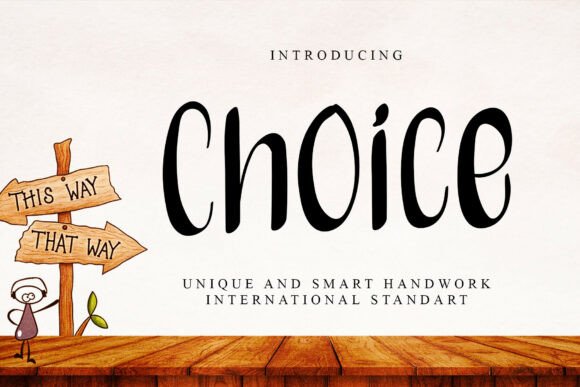
Introducing Choice Font: Elevate Your Designs with Elegance
In the world of design, the right font can make all the difference. It can elevate your project from ordinary to extraordinary, convey the perfect tone, and capture the essence of your message. If you’re on the hunt for a font that combines uniqueness, elegance, and professionalism, look no further than Choice Font. Designed with a keen eye for detail and a professional hand touch, Choice Font is the perfect companion for your design projects.
What Makes Choice Font Stand Out?
Choice Font is not just another typeface; it’s a design statement. Crafted with precision and a deep understanding of typographic art, this font is tailored to meet the needs of designers, crafters, and anyone looking to add a touch of sophistication to their work. Whether you’re creating wedding invitations, birthday cards, or any other greeting cards, Choice Font is versatile enough to adapt to any style or theme.
One of the standout features of Choice Font is its incredible versatility. It’s designed to be suitable for a wide range of projects, including:
- Wedding Invitations: Add a touch of elegance and romance to your wedding invites with Choice Font.
- Birthday Cards: Make birthdays even more special with personalized and stylish greetings.
- School Assignments: Elevate your school projects with a professional and creative touch.
- Party Invitations: From baby showers to graduation parties, Choice Font is perfect for any celebration.
Why Choose Choice Font?
There are several reasons why Choice Font should be your go-to typeface for your design needs:
- Unique and Elegant: Its distinctive style ensures your projects stand out from the crowd.
- Professional Touch: The font’s design mimics the delicacy and precision of professional handwriting.
- Highly Versatile: Suitable for both digital and print projects, making it incredibly versatile.
Choice Font is more than just a typeface; it’s a design companion that brings elegance, uniqueness, and professionalism to your projects. Whether you’re a seasoned designer or a crafting enthusiast, this font is sure to elevate your work and make it stand out. With its versatility, accessibility, and beautiful design, Choice Font is an excellent addition to your design toolkit. So why wait? Explore the possibilities with Choice Font today and transform your designs into stunning works of art.